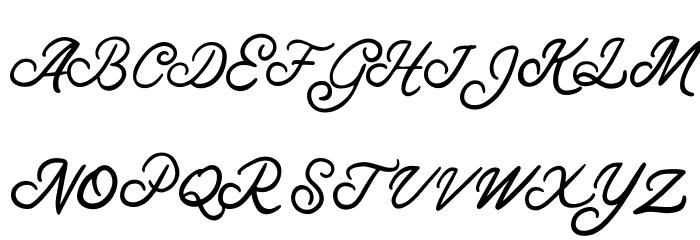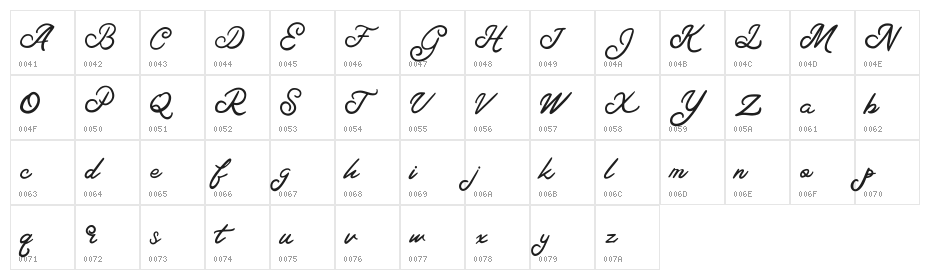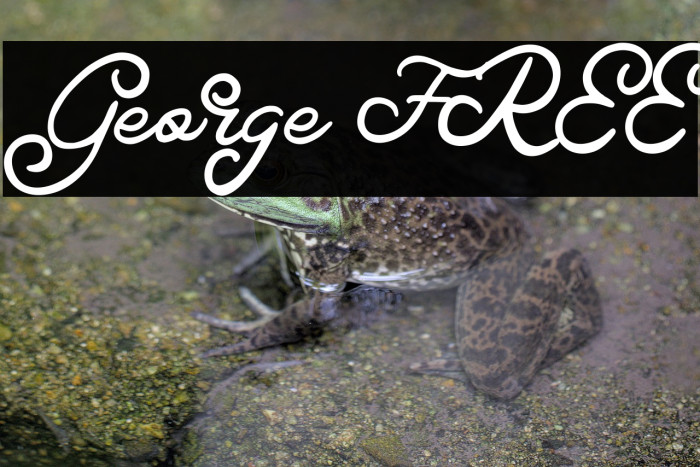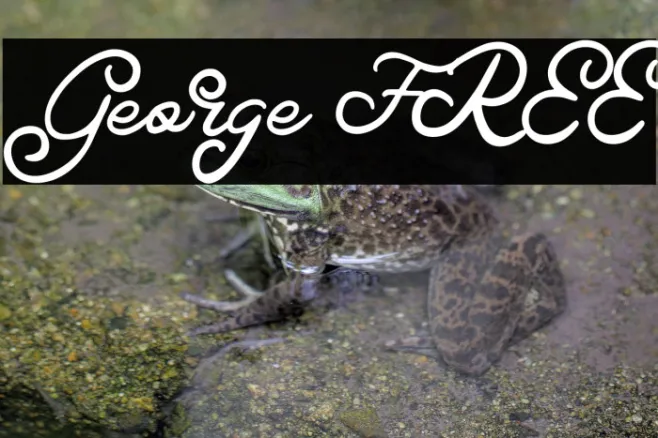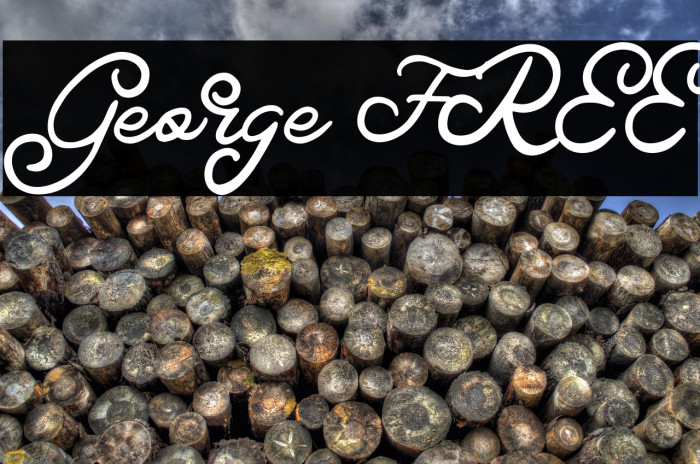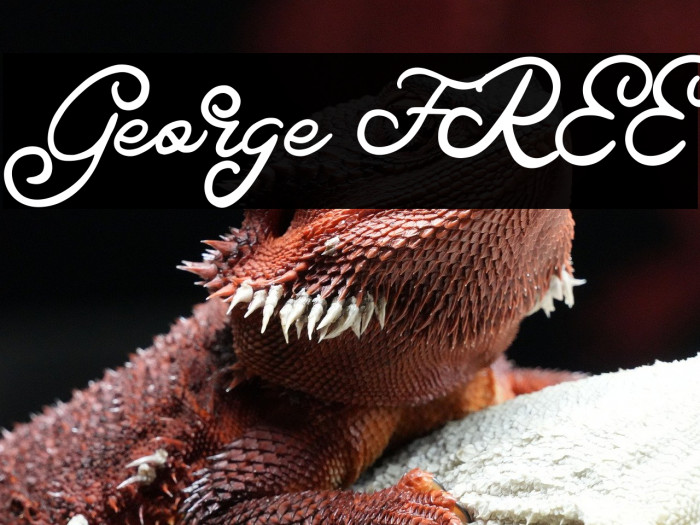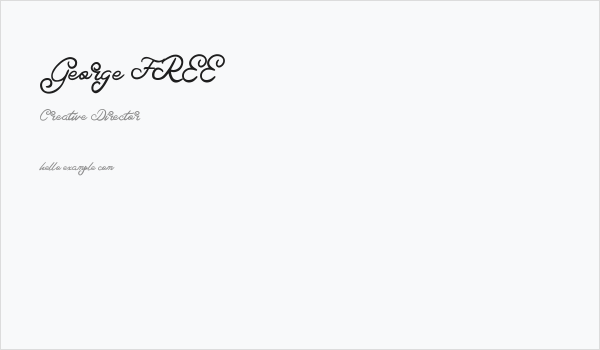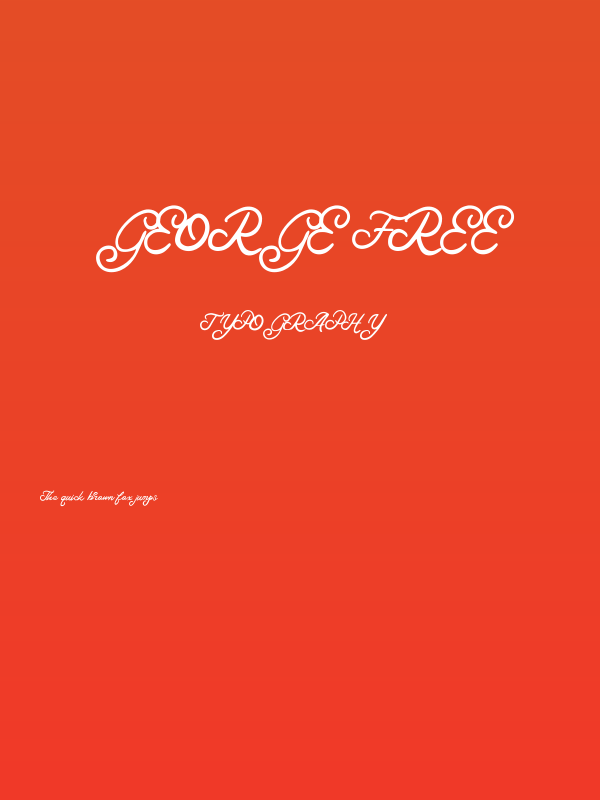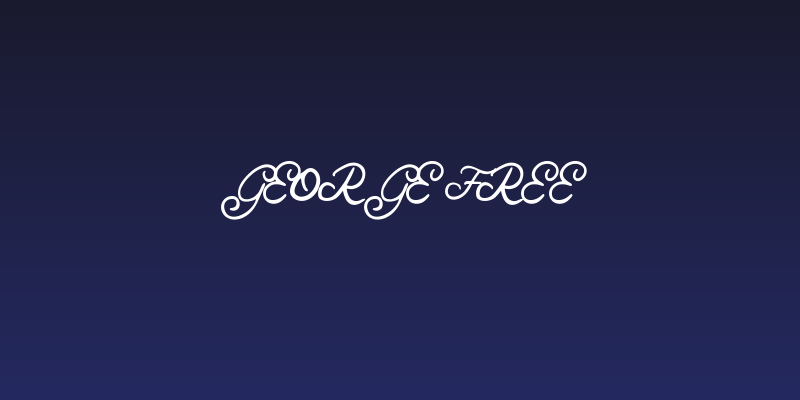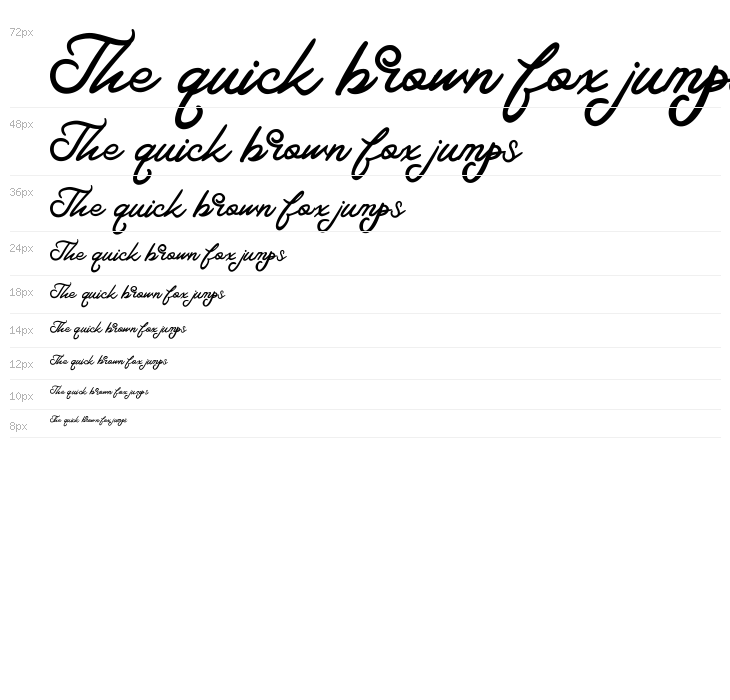
George FREE Font
George FREE Description
This elegant script font features flowing, cursive letters with a classic and sophisticated appearance. The uppercase letters are ornate with sweeping curves and loops, while the lowercase letters maintain a consistent, graceful flow. The font exhibits a high contrast between thick and thin strokes, enhancing its decorative appeal. The characters are closely spaced, giving a cohesive and connected look, ideal for creating a sense of elegance and formality. Its style is reminiscent of traditional calligraphy, making it suitable for projects that require a touch of refinement and class.